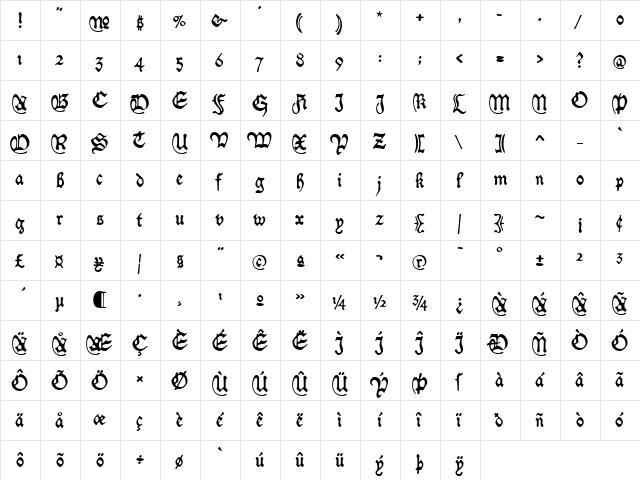
Caxton Script
Design Context for Caxton Typeface
Caxton flows with the natural rhythm of handwritten lettering, making it ideal for designs that call for warmth and personal expression.